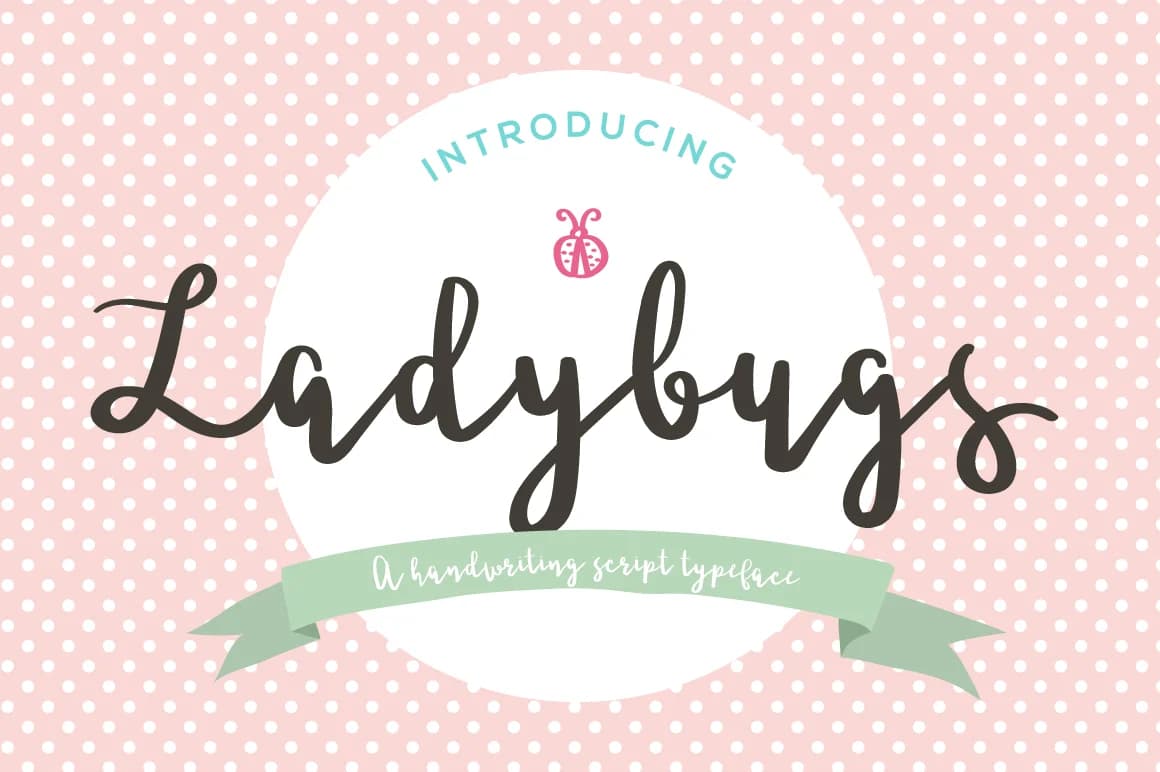
Ladybugs Font by paramajandesign is a whimsical handwritten script that captures the charm of relaxed, organic letterforms with playful character. The design carries an inherently cheerful personality that feels both contemporary and nostalgic, making it equally suited to personal projects and commercial applications where warmth and approachability matter most.
This typeface shines particularly well for children's book layouts, baby shower invitations, nature-themed greeting cards, and scrapbooking compositions where its casual elegance can take center stage. The included ladybug symbols and decorative elements add an extra dimension to your creative toolkit, allowing you to layer visual interest without sourcing additional graphic assets. Whether you're designing spring event materials, craft project labels, garden-themed packaging, or playful product designs for specialty boutiques, the font's inherent sweetness translates effortlessly across different mediums and scales.
The relaxed letterforms maintain excellent legibility while keeping their handmade appeal intact, striking that delicate balance between personal touch and professional execution. Its versatility allows you to use it as a striking display choice for headlines and titles, or as a charming secondary font in mixed-typeface layouts. The design works equally well whether you're developing illustrated children's projects or adding character to stationery systems. Get Ladybugs Font on Creative Fabrica to start bringing warmth and personality to your creative work.
Ladybugs Font is a script font that shines as a display or heading face. Pair it with a clean sans-serif or serif font for body text β the contrast creates a clear hierarchy while the two styles stay balanced and easy to read.